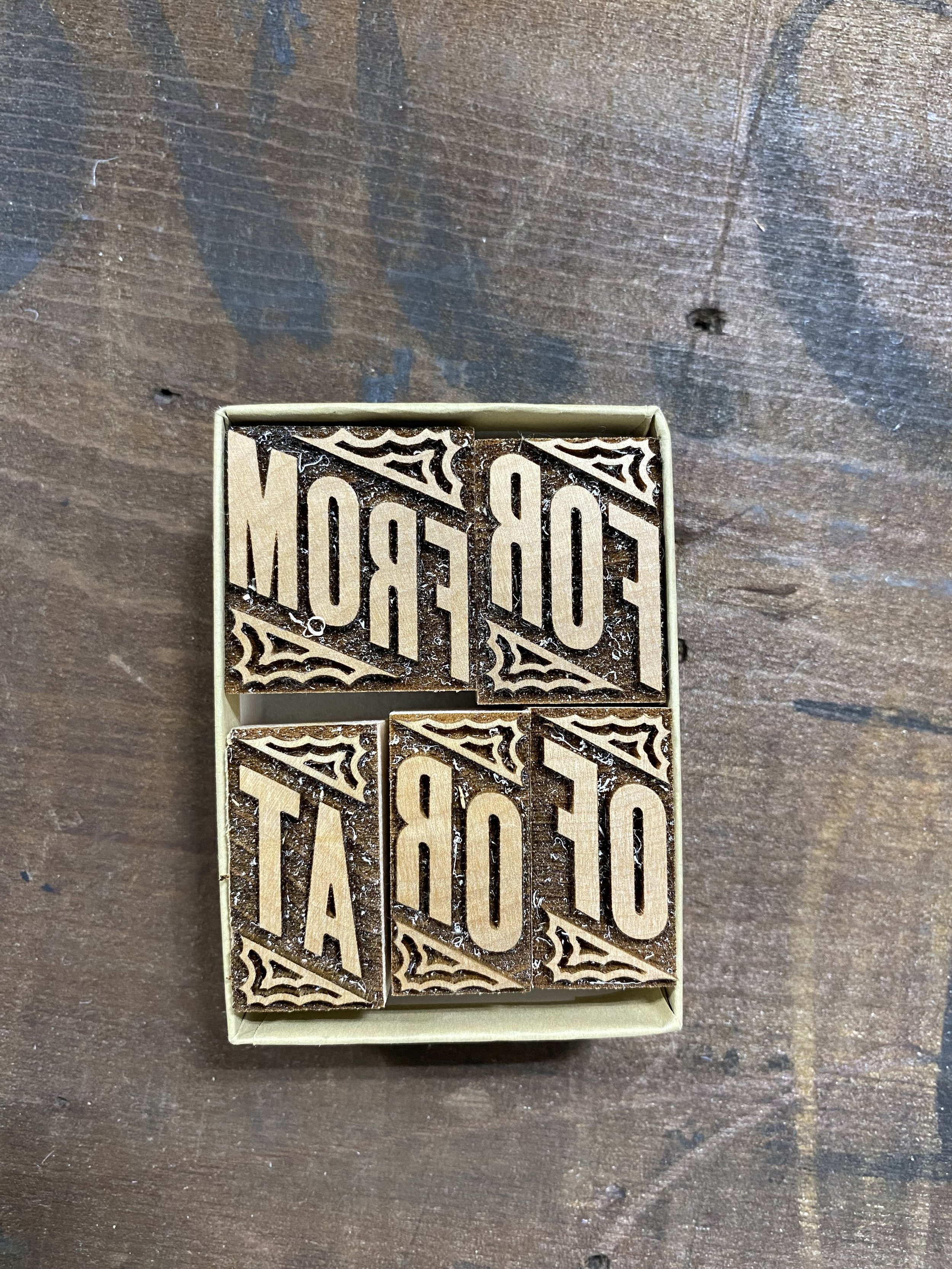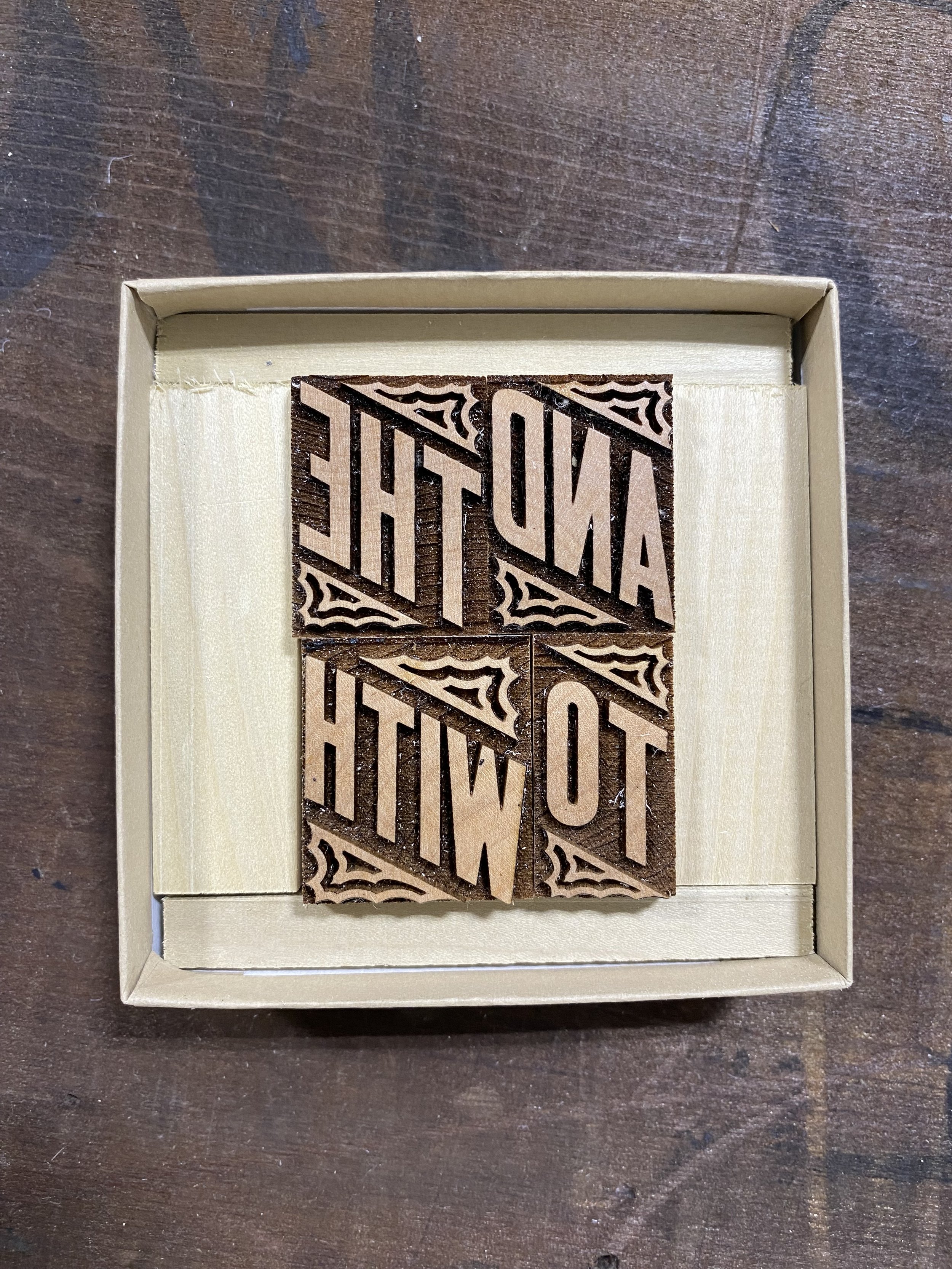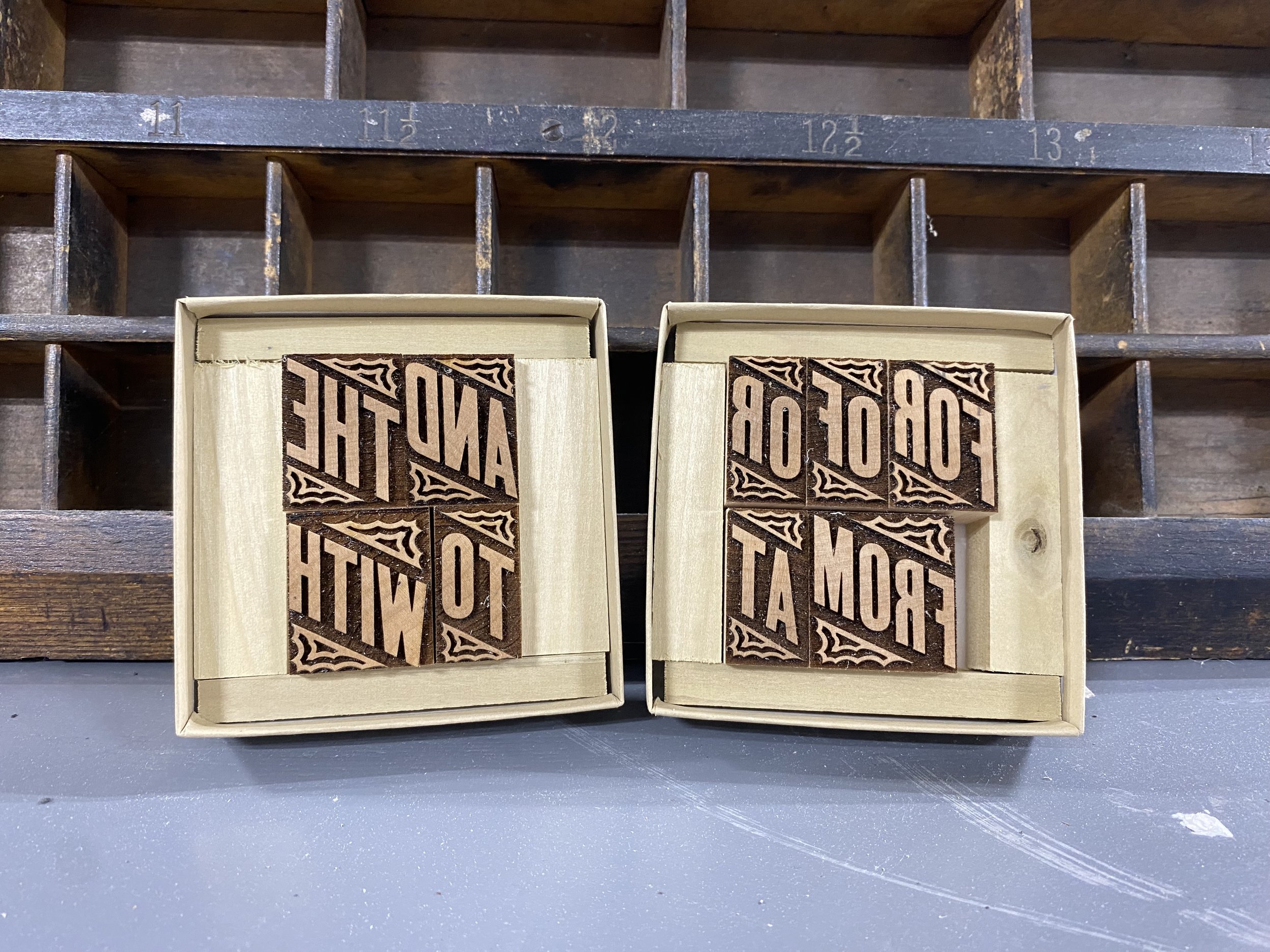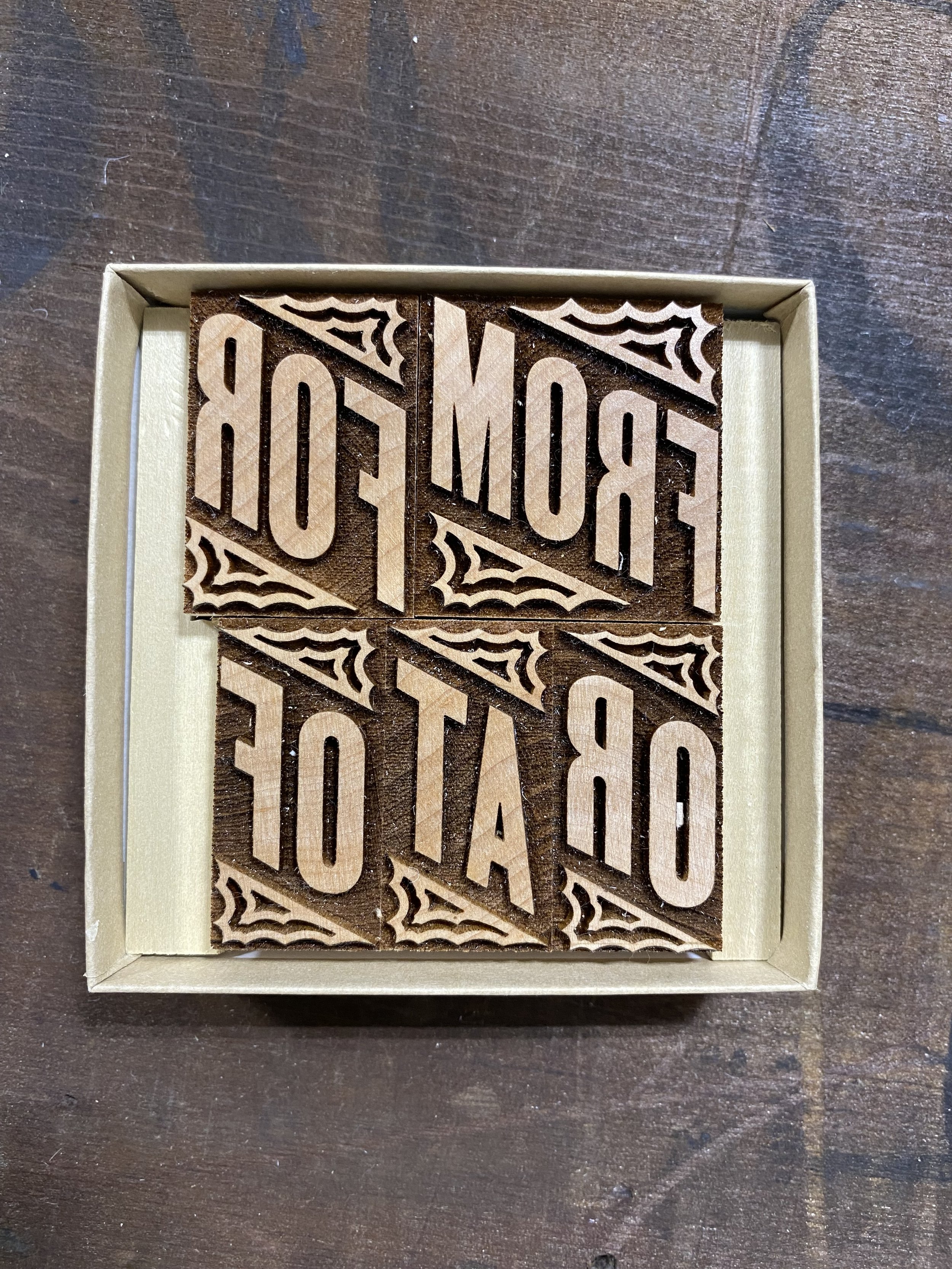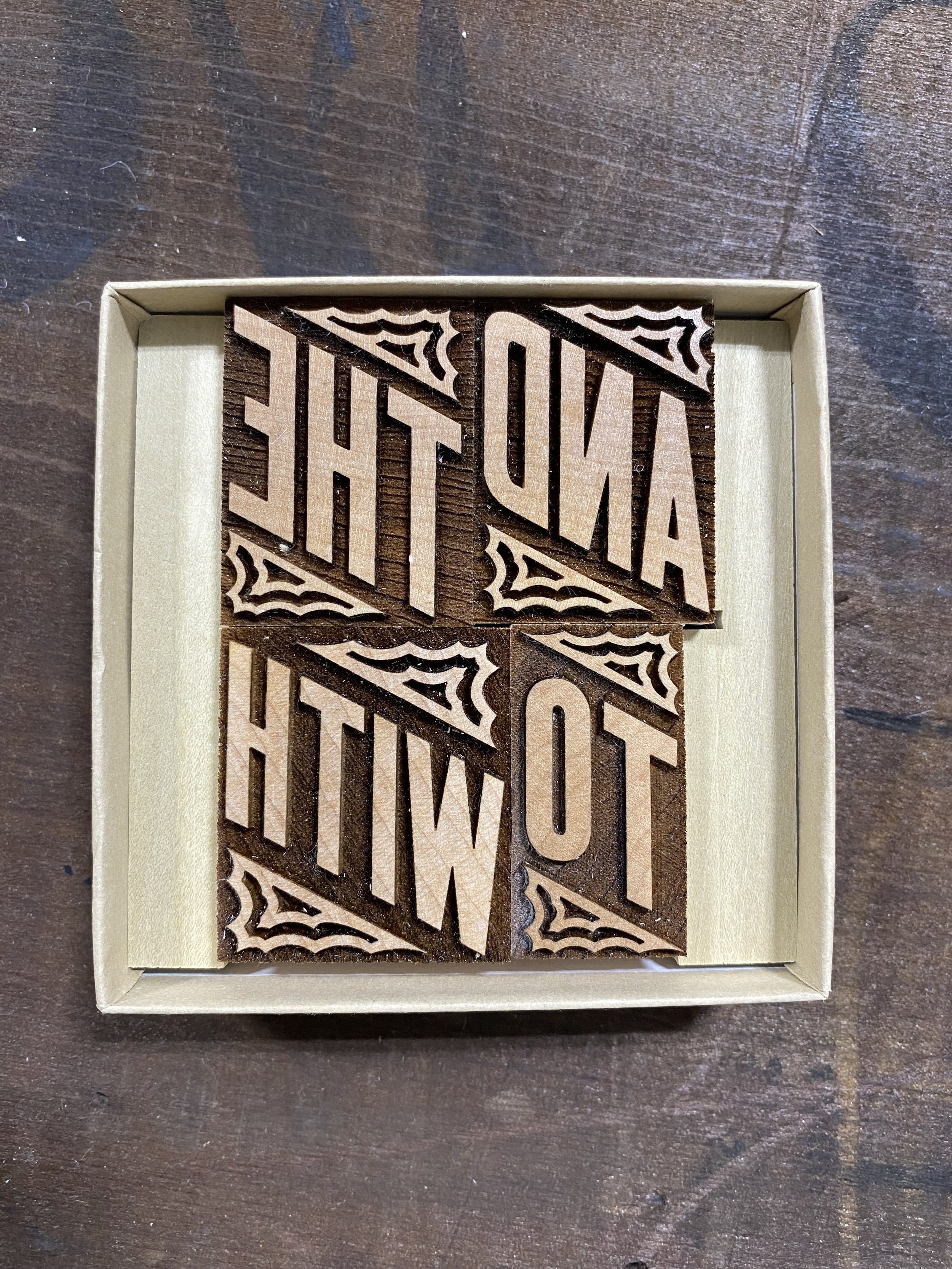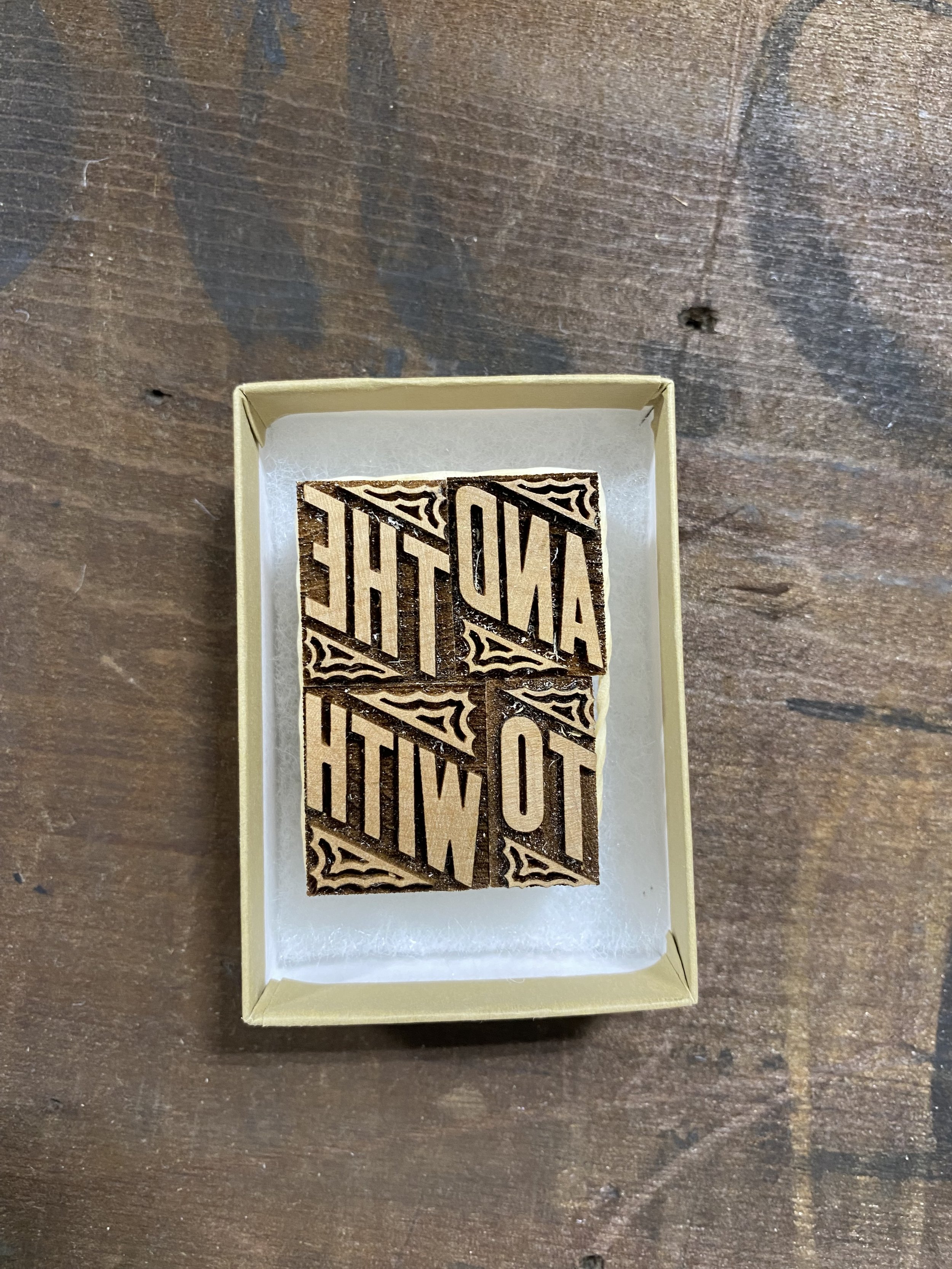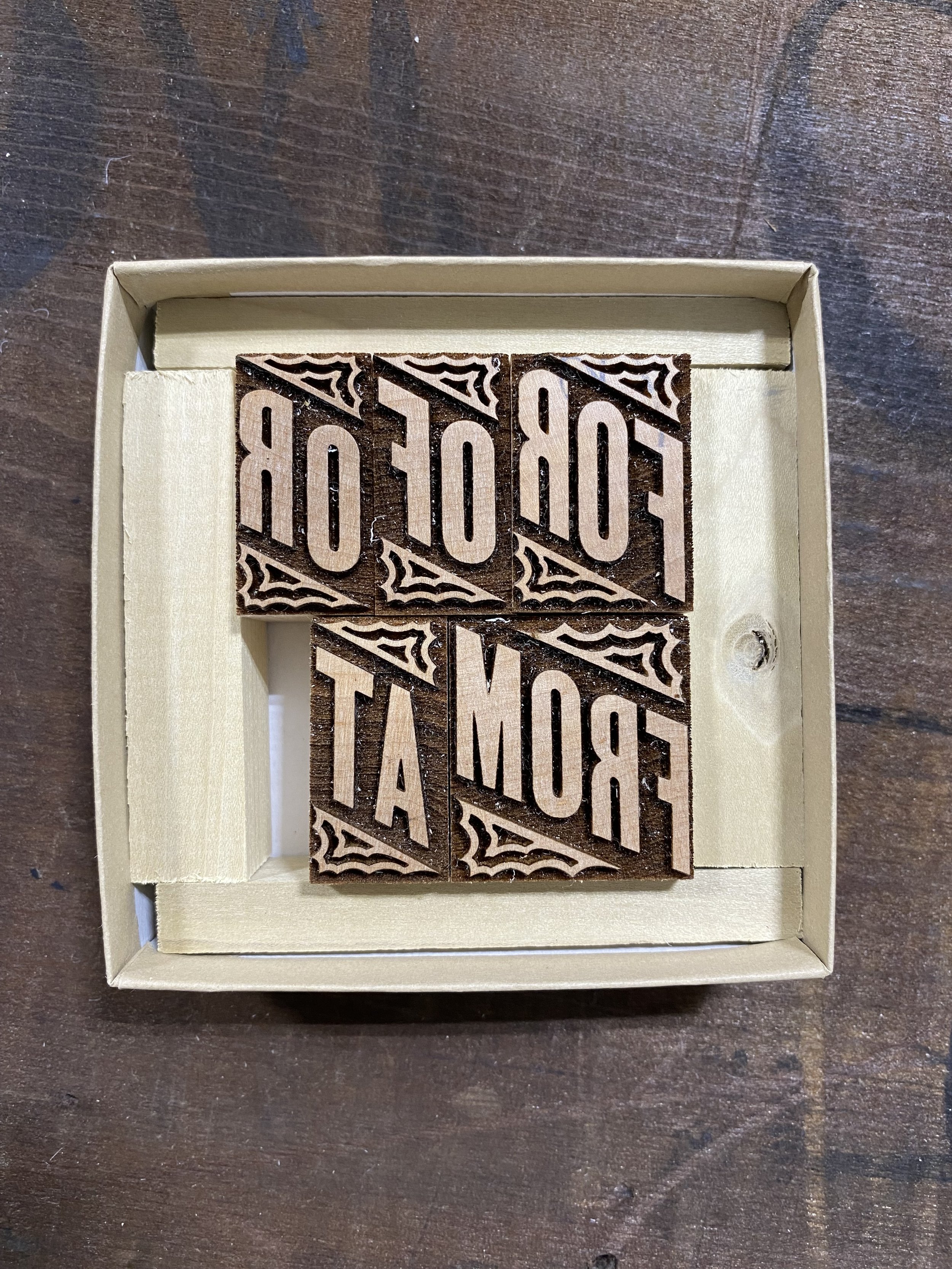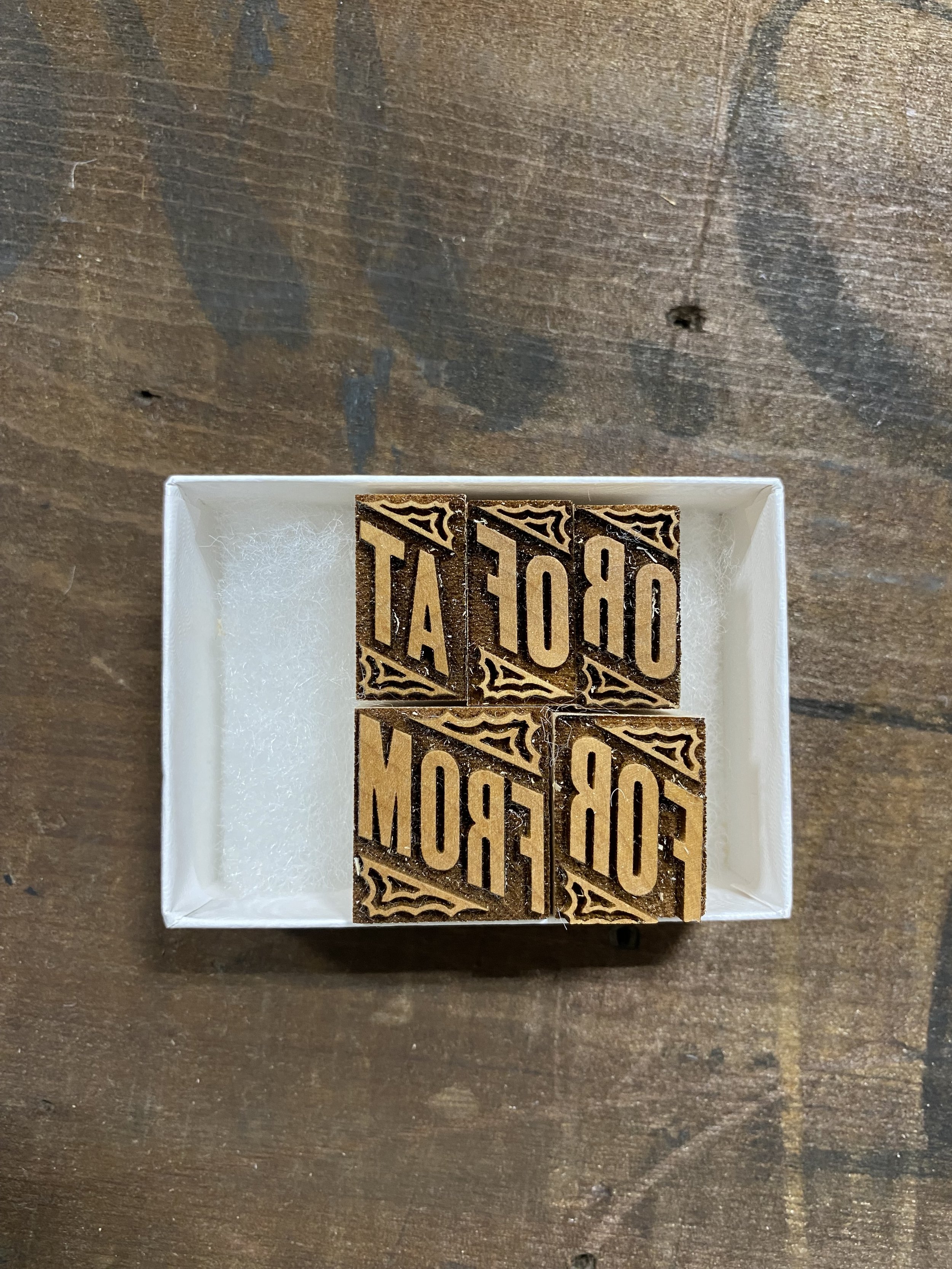
Inspired by Tubbs Manufacturing Company
Cut by Scott Moore
Set 1– “and”, “the”, “to”, “with”
Set 2– “from”, “for”, “or”, “at”, “of”
Catchwords are one of the most requested things that I make. Originals are rare, and never sold as full sets. Using three Tubbs specimen books, I found five vintage examples and designed four more to complete the set. The new designs were drawn to match historic spacing and stroke weight.